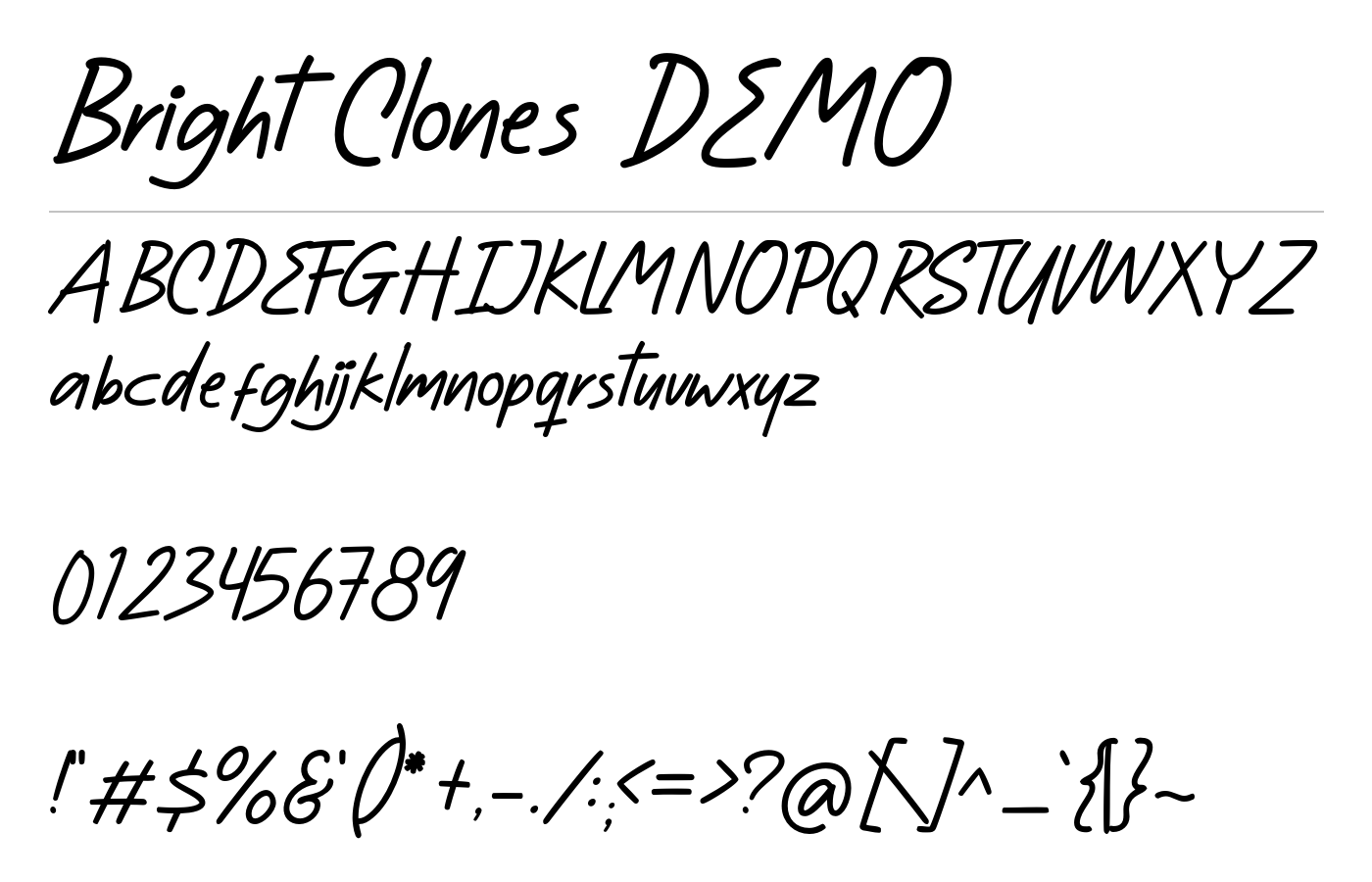
Bright Clones DEMO is a casual, handwritten script font featuring a light, slightly condensed style with smooth, flowing strokes that give it an informal and friendly character. Its clean, legible letterforms with a subtle slant make it ideal for creative projects, personal branding, or any design seeking a natural, approachable vibe. This font works well for headlines, invitations, and branding where a warm, human touch is desired.
Bright Clones DEMO Font